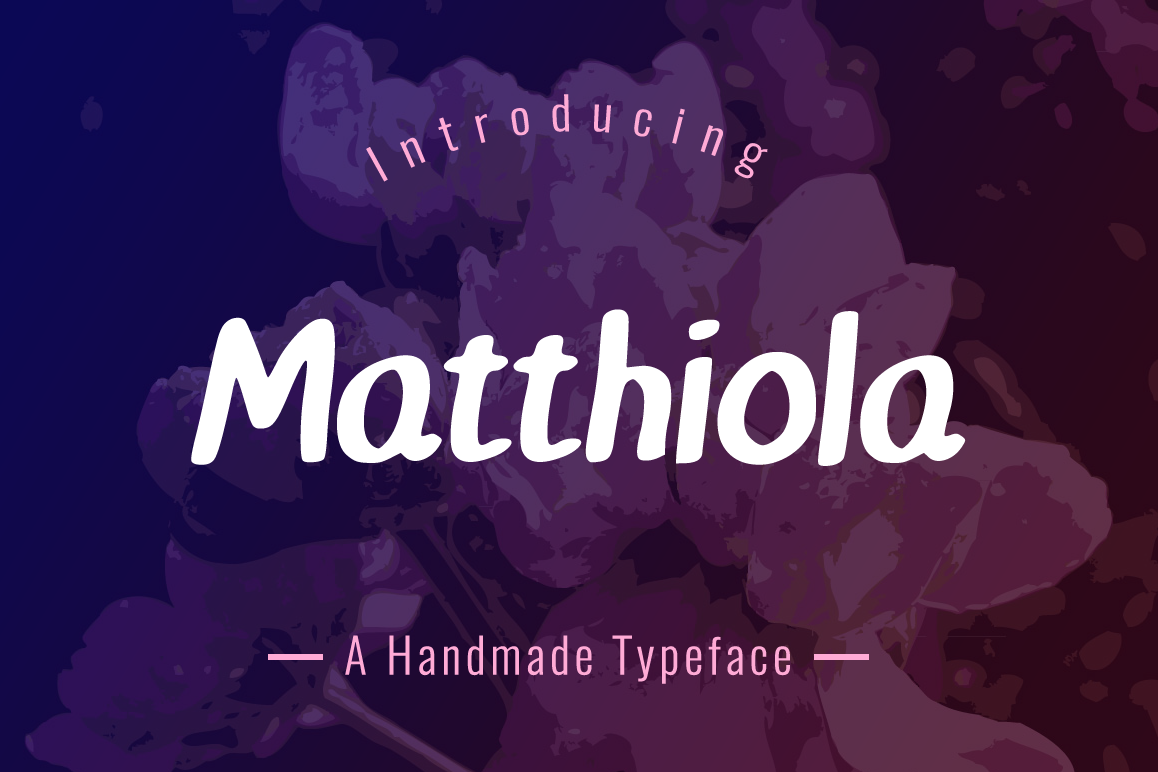
Introducing Matthiola!
Matthiola is a new & modern handmade font. Matthiola is perfectly suited to stationery, logos, t-shirt, paper, print design, website header, photo frame, flyer, music cover, poster, image slider and much more.